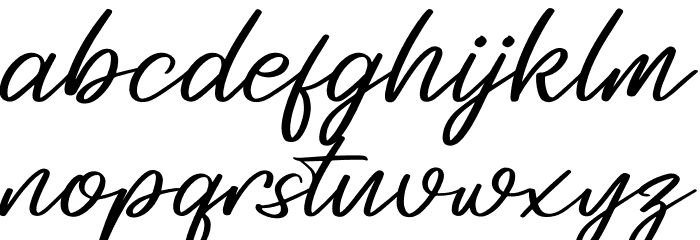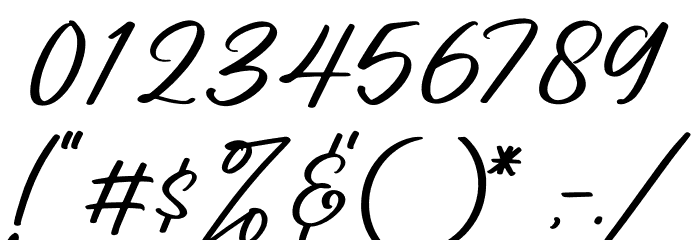
Midletton Blenda Font
This font exudes a classic and elegant script style, characterized by its fluid, cursive strokes and smooth transitions between letters. The uppercase letters are slightly more ornate, with sweeping curves and a sense of motion, while the lowercase letters maintain a consistent flow, enhancing readability. The numerals and special characters are designed to complement the overall script aesthetic, ensuring a cohesive look across all text. This font is perfect for projects that require a touch of sophistication and elegance, such as wedding invitations, branding, and high-end product packaging.
A classic and elegant script font with fluid, cursive strokes.
- Font: Midletton Blenda
- Proposed Projects: Ideal for wedding invitations, branding, and high-end product packaging.
- Category: Script
- Overall Style: Classic
- Use Case: Logos, Invitations, Branding